Bold and Beautiful: 11+ Cyberpunk Fonts That Define the Future of Typography
Which fonts look most cyberpunk?
Fonts that look most cyberpunk typically embody a futuristic, edgy, and sometimes chaotic aesthetic. They often feature sharp angles, bold lettering, and intricate details reminiscent of technology, neon lights, and urban environments. The design styles and looks that make fonts appear cyberpunk include:
Sharp Angles: Cyberpunk fonts often incorporate sharp, angular shapes, reflecting the high-tech and sometimes dystopian nature of cyberpunk worlds.
Glowing Elements: Fonts with elements that appear to glow or emit light, resembling neon signs commonly found in cyberpunk cityscapes, evoke the futuristic atmosphere of the genre.
Technological Influence: Fonts inspired by technology, such as computer code or digital displays, capture the essence of cyberpunk themes related to artificial intelligence and virtual realities.
Urban Grunge: Some cyberpunk fonts feature elements of urban decay or grunge, reflecting the gritty and chaotic aspects of cyberpunk environments.
Overall, cyberpunk fonts aim to convey a sense of innovation, futurism, and urban energy, making them perfect for creating artwork that embodies the cyberpunk aesthetic.
1. NCL KREGAS—A Cyberpunk Font
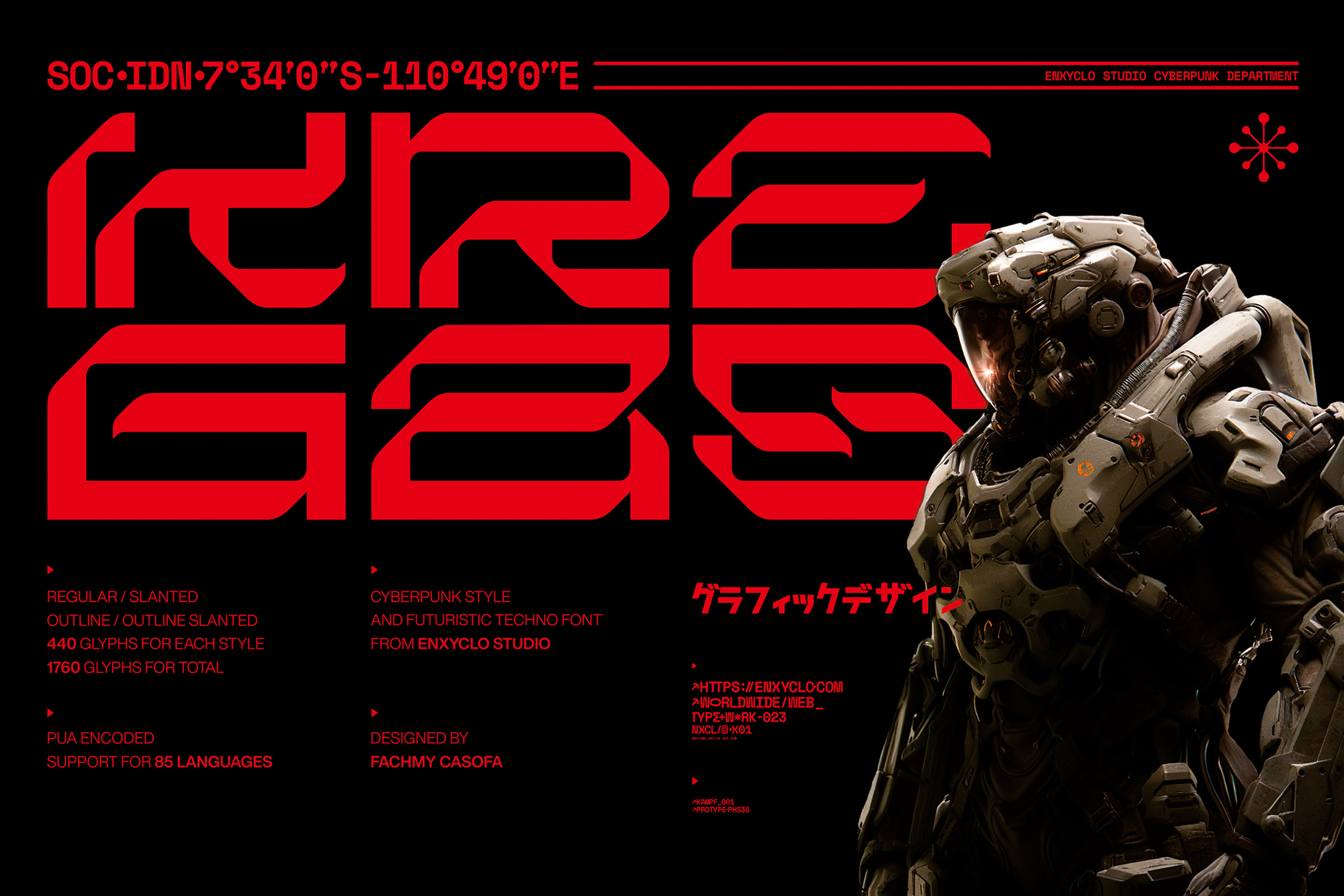
Discover NCL KREGAS—a cyberpunk font with four unique styles: Regular, Slanted, Outline, and Outline Slanted. Its avant-garde design adds a futuristic touch to your projects, making them stand out in any setting. With extensive features and multilingual support, NCL KREGAS empowers your creativity to new heights.
2. NCL ROBOWAPIX – Cyberpunk Font
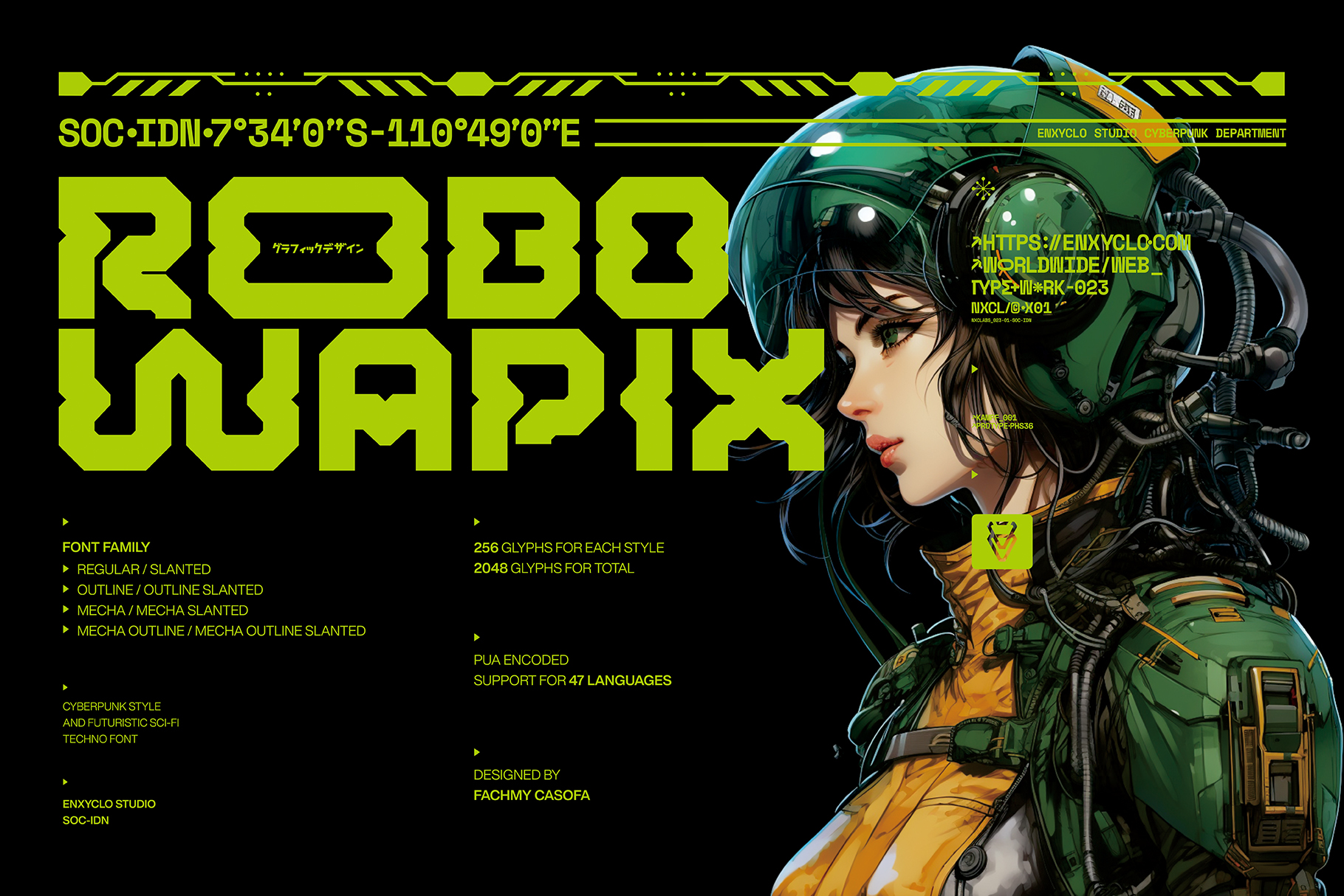
NCL ROBOWAPIX is a cyberpunk font with 8 styles, offering versatility and innovation for your projects. Its futuristic design adds depth and sophistication, perfect for websites, posters, logos, and more. With extensive features and multilingual support, NCL ROBOWAPIX is your gateway to cyberpunk creativity.
3. Karixby – Futuristic Techno Cyberpunk Font
Introducing KARIXBY, a futuristic display font that elevates your projects with its powerful and inspiring design. Perfect for various applications such as headlines, posters, logos, and more, this font adds a futuristic touch to any project. With three styles and extensive features including True Type, Open Type, and Web Open Font Format, KARIXBY offers versatility and creativity.
4. MBF Space Habitat Cyberpunk Font
Introducing the MBF Space Habitat Cyberpunk Font: This font is the epitome of modern minimalist design. With its wide, wavy appearance and a blend of rounded corners and sharp edges, it captures the essence of futuristic sci-fi themes perfectly. Ideal for logos, posters, displays, headlines, t-shirt designs, and more, this font brings a unique touch of Cyberpunk style to any project. Get ready to take your designs to the next level with the MBF Space Habitat Cyberpunk Font!
5. Proxon Sans Cyberpunk Font
Embodying the essence of modernity and futurism, Proxon Sans Cyberpunk Font is a contemporary sans serif typeface inspired by the realms of science fiction and technology. With its sleek and playful design, this font is perfect for branding, magazine layouts, marketing designs, and more. Its versatility makes it ideal for various applications, including technology-related projects, sci-fi designs, headlines, and display pieces.